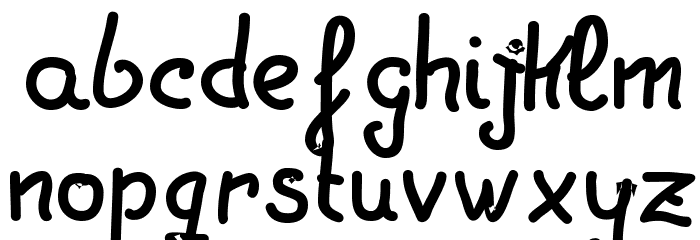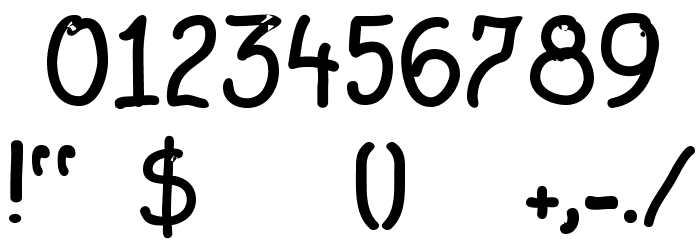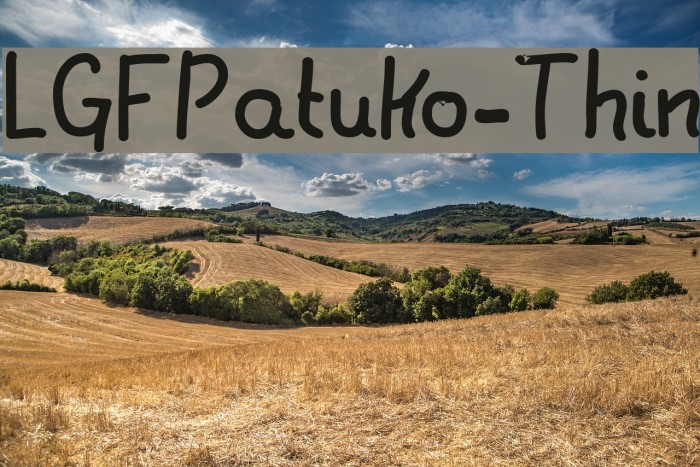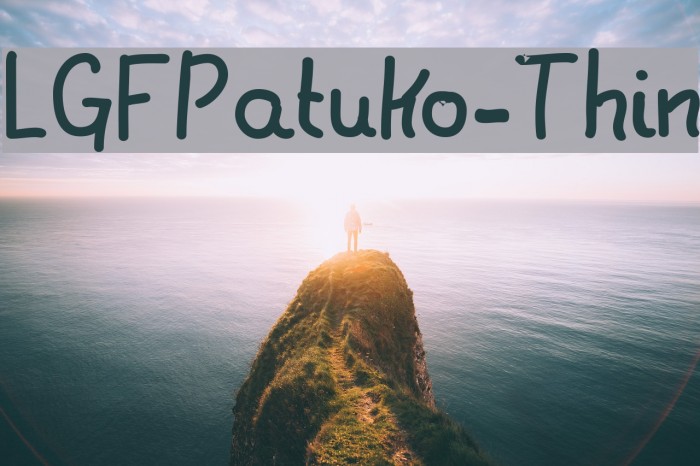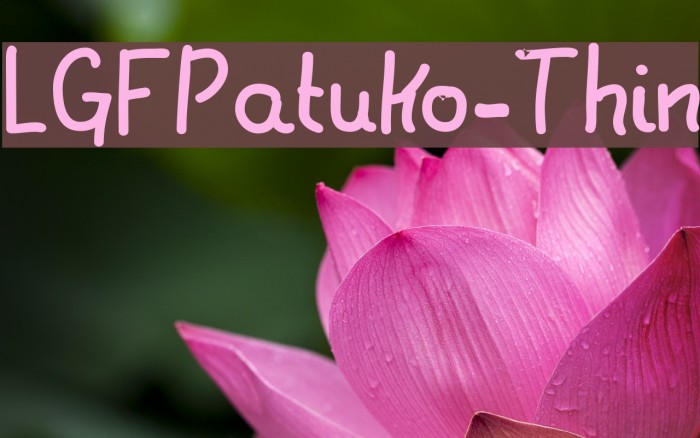
LGFPatuko-Thin Font
This font features a playful and informal handwritten style, characterized by its irregular strokes and slightly uneven baseline. The letters have a casual, friendly appearance with rounded edges and a slight tilt, giving it a dynamic and lively feel. The uppercase and lowercase letters maintain a consistent style, while the numbers and special characters integrate seamlessly with the overall design. The font's thin strokes contribute to its light and airy aesthetic, making it suitable for projects that require a personal touch.
A playful, handwritten font with thin, irregular strokes and a casual style.
- Proposed Projects: Ideal for greeting cards, children's books, casual invitations, and playful branding.
- Category: Handwritten
- Weight: Light
- Overall Style: Casual
- Use Case: Logos, Invitations, Greeting Cards